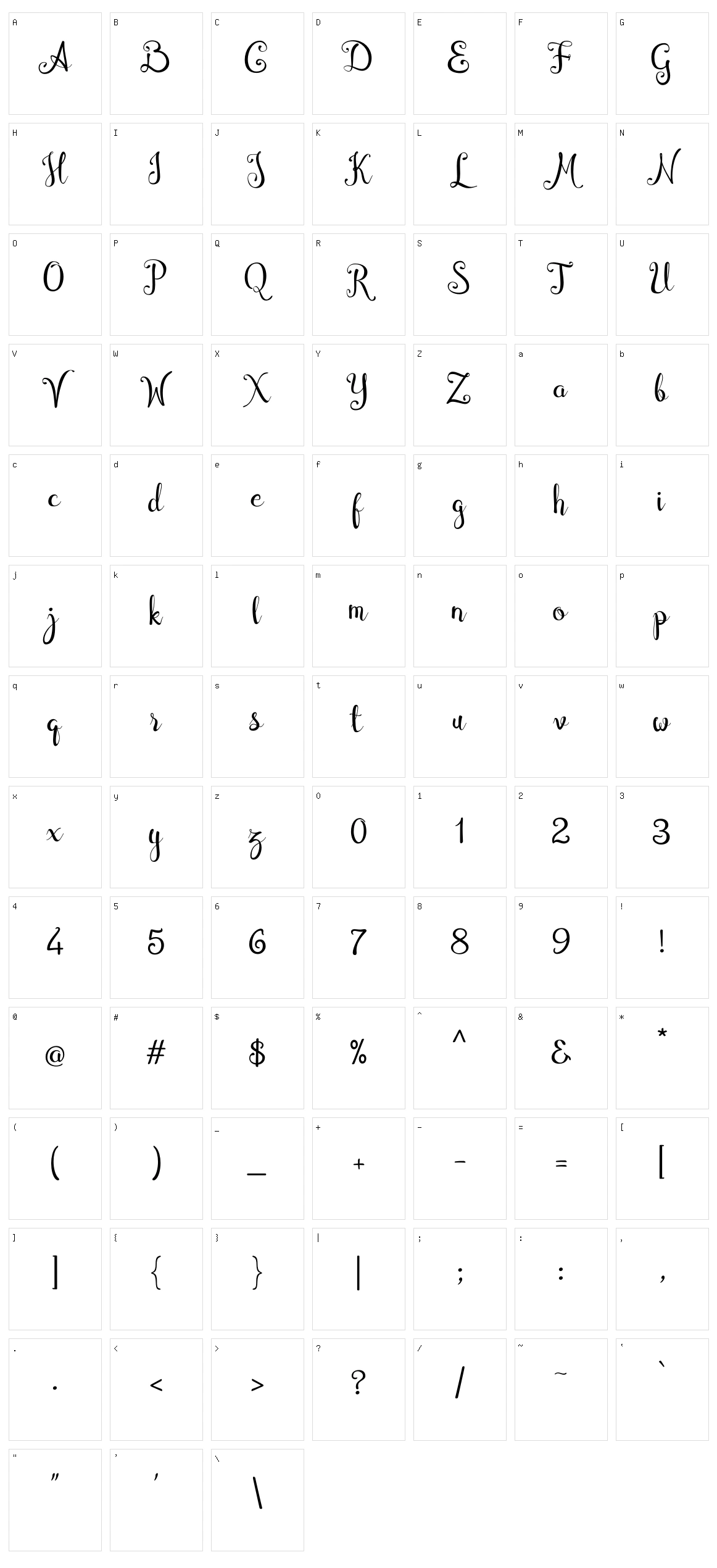
- Swash for initial lowercase just active if you insert "space" before.
- Initial and Final form active if you activate Contextual Alternates.
- Stylistic Alternates sometime overlap with other Opentype features, please try to deactivate other Opentype features.